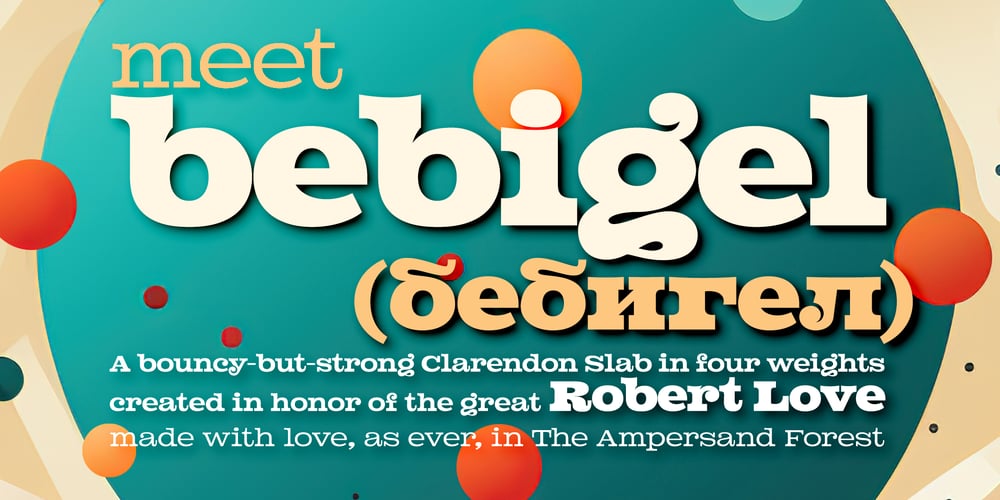
Bebigel Font Family was designed by DC Scarpelli and published by The Ampersand Forest. Bebigel contains 4 styles and family package options. Meet Bebigel! (Say “bɛ’-bi-gɛl,” with a hard g). Bouncy and fun, but also a strong Clarendon slab serif in four weights, supporting Latin and all Cyrillics. Great for branding, titling, packaging and signage — wherever strong letters with big personality are required. And if you need a little less personality, just turn on Stylistic Set One (“Butch it up!”) and find simpler versions of the more ornate letters. Dedicated to the great Robert Love and made with love in The Ampersand Forest.